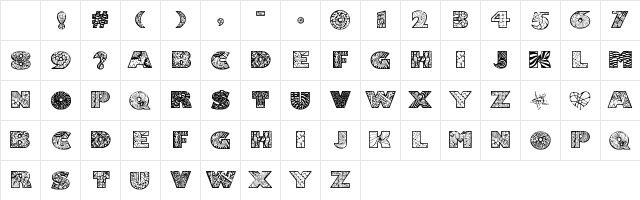
Complete Zenfyrkalt Regular glyph index. Displaying only characters natively supported by Zenfyrkalt Regular font.
Zenfyrkalt is a composed and adaptable typeface that performs quietly and consistently across a wide range of design contexts.